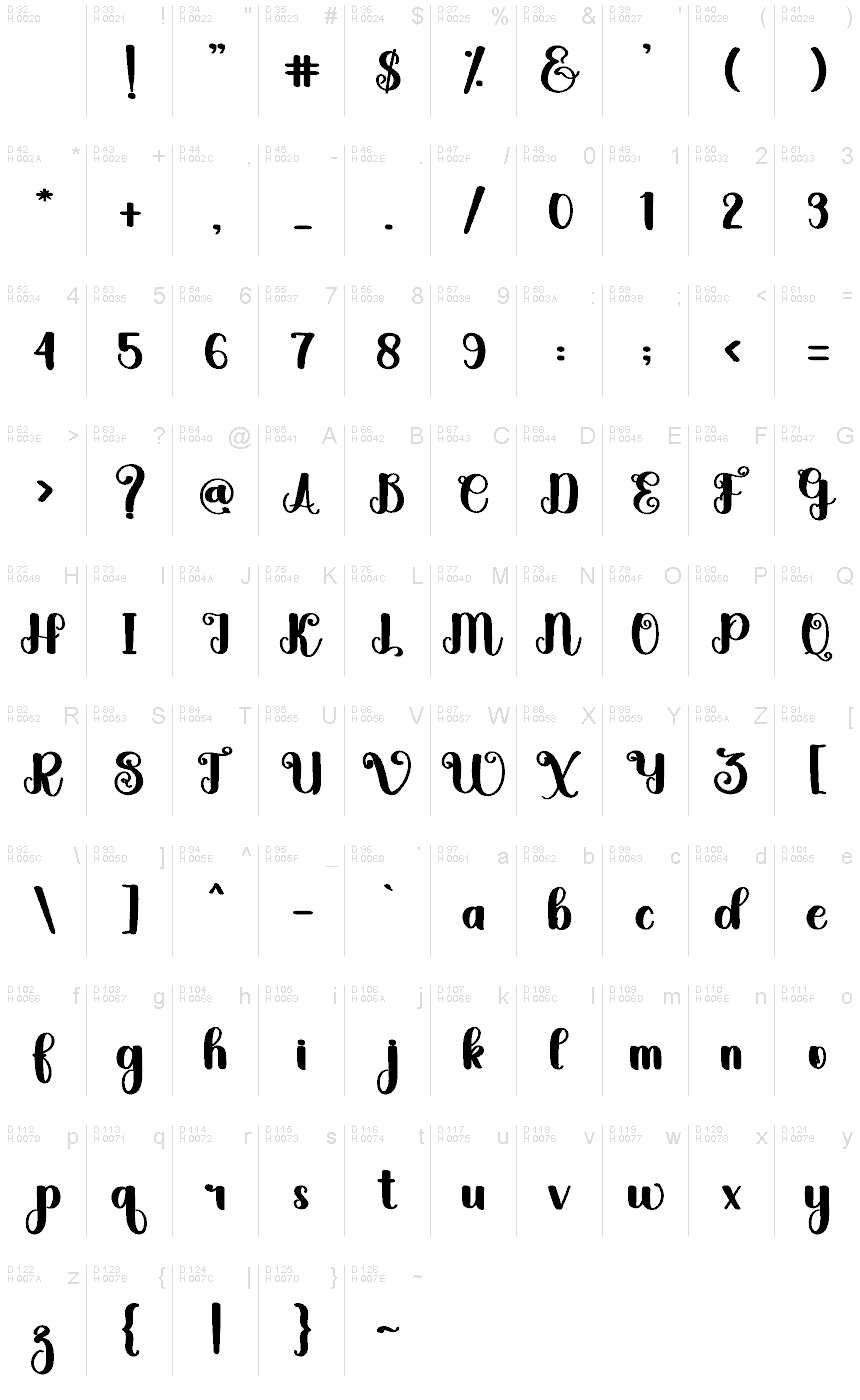
Marriage
Marriage, a captivating calligraphy font by FreshtypeINK, adds an elegant touch to any project. With its semi-bold weight, this font effortlessly balances grace and strength.
Perfect for wedding invitations, event signage, and love-themed designs, Marriage exudes romance and sophistication. Its flowing strokes create a sense of timeless beauty, making it an ideal choice for branding high-end boutiques or luxury products. Whether used in digital or print media, this exquisite calligraphy font is sure to leave a lasting impression on your audience.